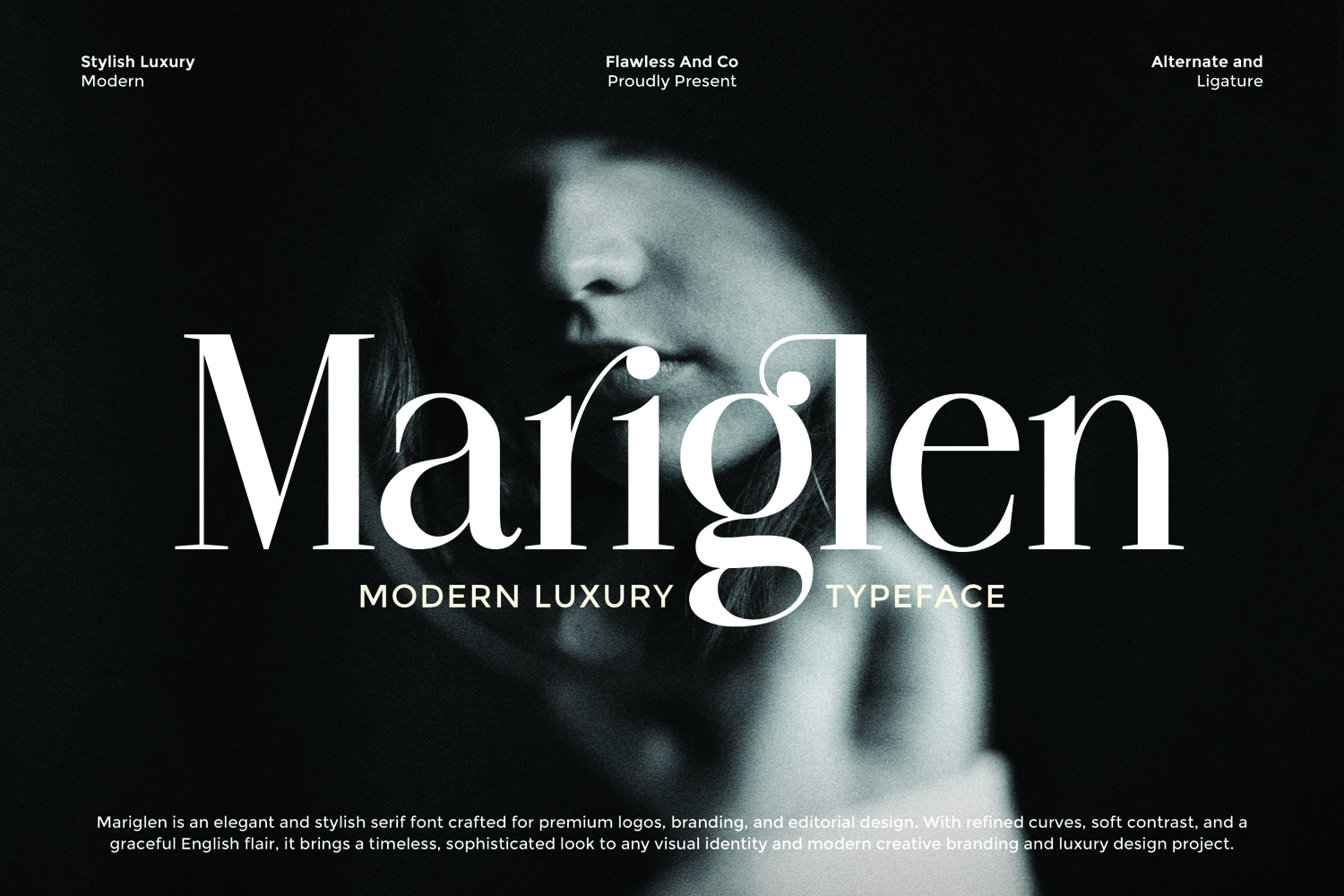
Mariglen
MARIGLEN
Mariglen - Modern Serif Font
Mariglen is a modern and luxurious serif typeface designed for timeless elegance. With refined curves, high contrast, and graceful details, this font exudes sophistication while maintaining readability. Perfectly suited for premium branding, editorial design, fashion projects, and luxury logos, Mariglen adds a touch of modern classic beauty to any creative work. Whether used for magazines, product packaging, wedding invitations, or high-end brand identity, Mariglen elevates every design with a stylish and professional flair.
• Alternates & Ligatures
Who Should Use Mariglen?
Mariglen is made for designers, creatives, and brands who want to bring elegance and timeless charm into their work. This font is perfect for luxury fashion labels seeking sophisticated typography, wedding organizers and stationery designers who need refined lettering, editorial and magazine layouts requiring high-class aesthetics, beauty and lifestyle brands looking for stylish identity, and creative professionals aiming to elevate their brand presence with a modern yet classic serif.
A Must-Have Font for "Brand and Logo" Creators and Designers
Mariglen is an essential font for brand builders, logo designers, and creative professionals who want to showcase elegance and sophistication in every project. With its timeless serif style, it ensures your designs stand out with class and distinction.
Why Choose Maraiglen for "Brand and Logo" Projects?
Mariglen offers the perfect blend of modern sophistication and classic charm, making it an excellent choice for brands and logos that need to leave a lasting impression. Its refined serif details bring elegance, while its strong structure ensures clarity and versatility across print, digital, and identity design. With Mariglen, every logo and brand element exudes professionalism and timeless appeal.
Suitable For:
• Brand identities and logo design
• Editorial layouts and magazine titles
• Luxury fashion and beauty branding
• Wedding invitations and stationery
• Packaging and product design
• Social media graphics and marketing materials
• Creative agencies and branding projects